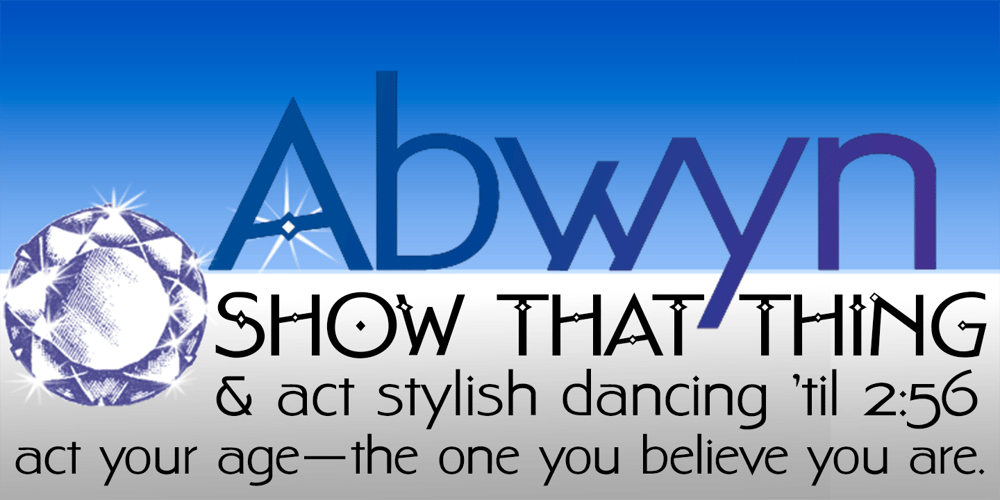
Abwyn Font Family was designed by David Bergsland and published by Hackberry Font Foundry. Abwyn contains 1 styles and family package options. Abwyn is a sparkly Art Deco construction. The little diamonds in the vertical strokes add a lightness that is very pleasing to the eye in display sizes: Lower case numbers, Euro, ballot box in the section slot. It was just designed for fun & celebration.